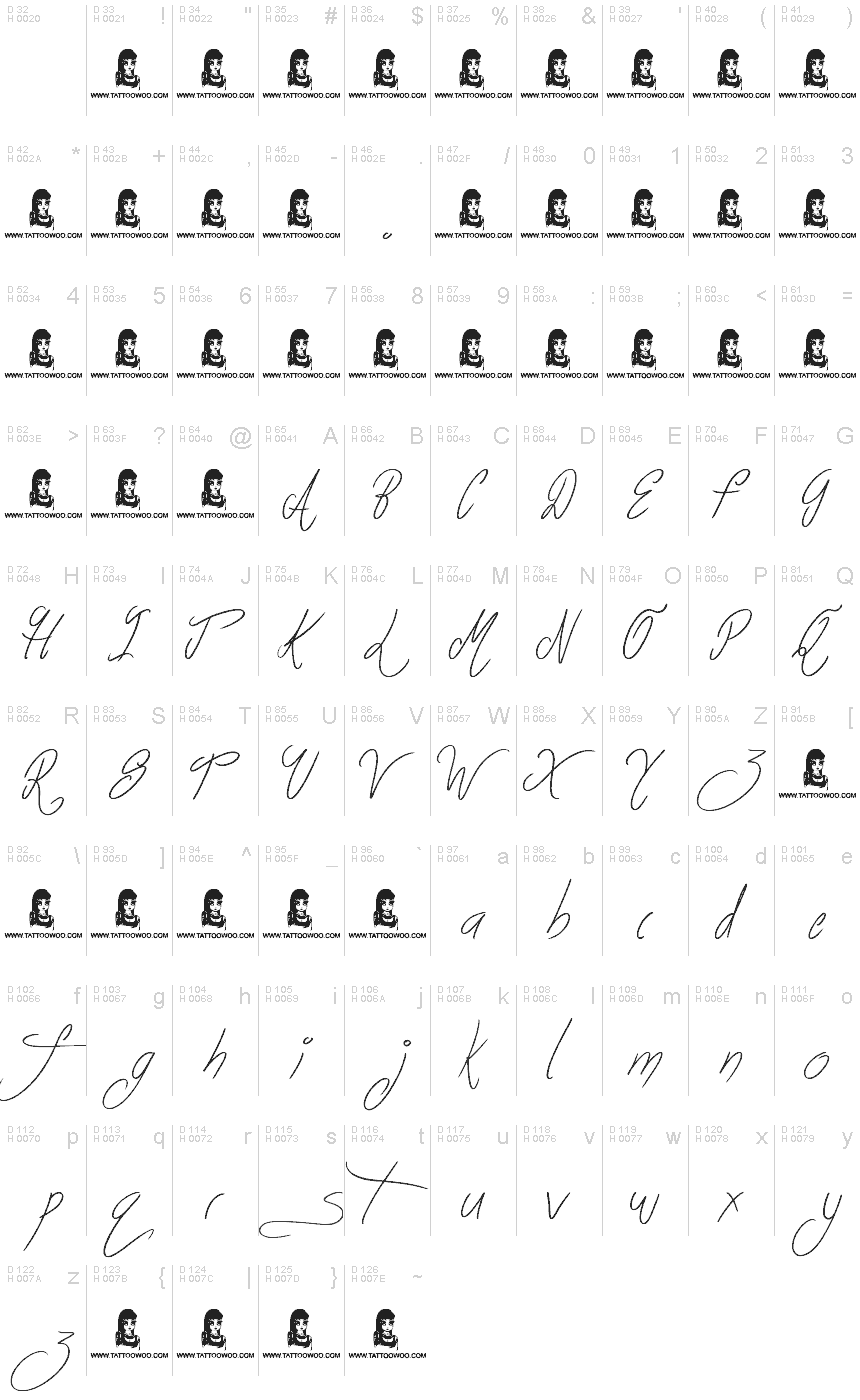
Life Azures
Life Azures is a captivating handwritten font crafted by JSH creates. This light, flowing script exudes a sense of elegance and refinement, with each stroke capturing the essence of a personal, handcrafted touch. The organic, fluid lines convey a distinct charm, inviting viewers to immerse themselves in the genuine, heartfelt expression it embodies.
This versatile font lends itself beautifully to a wide array of design applications, from branding and packaging to invitations and editorial layouts. Its distinctive personality adds a touch of warmth and authenticity, making it an ideal choice for projects seeking to convey a personal, artisanal aesthetic. Whether used as a focal point or an accent, Life Azures by JSH creates effortlessly elevates the overall design, leaving a lasting impression on the viewer.